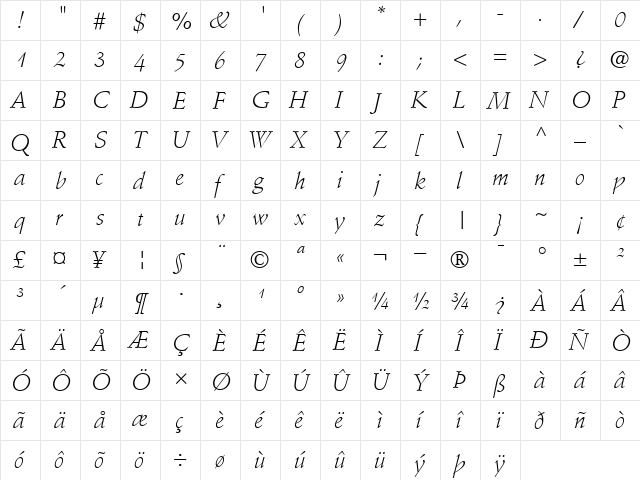
StempelSchneidler-Light LightItalic
Design Context for StempelSchneidler-Light Typeface
StempelSchneidler-Light takes a measured approach to typography — its balanced proportions and neutral character make it a reliable workhorse for both digital and print work. The slanted form adds forward momentum and visual energy. Its slender proportions lend an understated elegance to any composition.
Pro Tip: Try StempelSchneidler-Light for annotation and caption copy alongside an upright companion — the contrast in angle creates a dynamic but ordered typographic system.